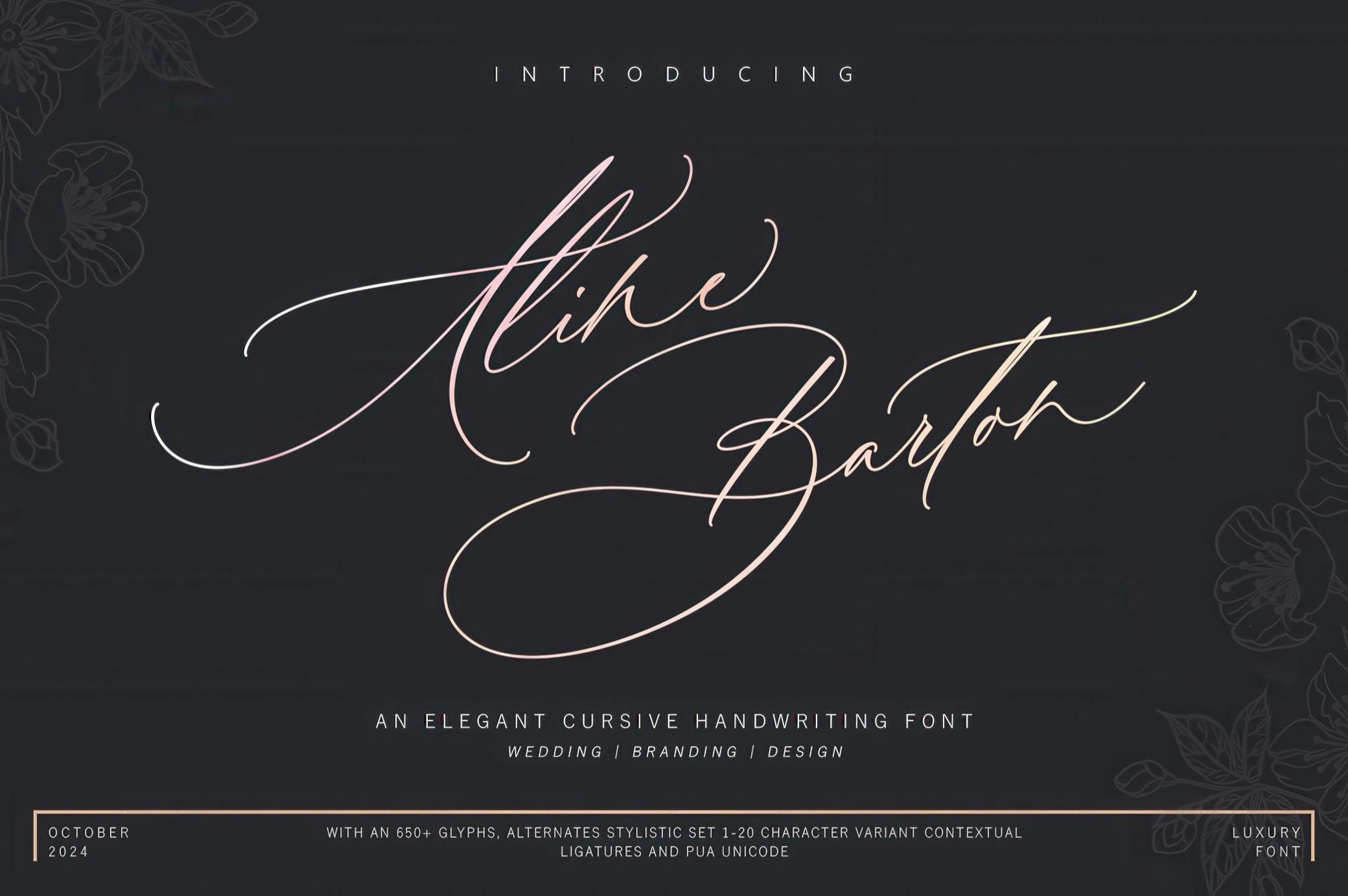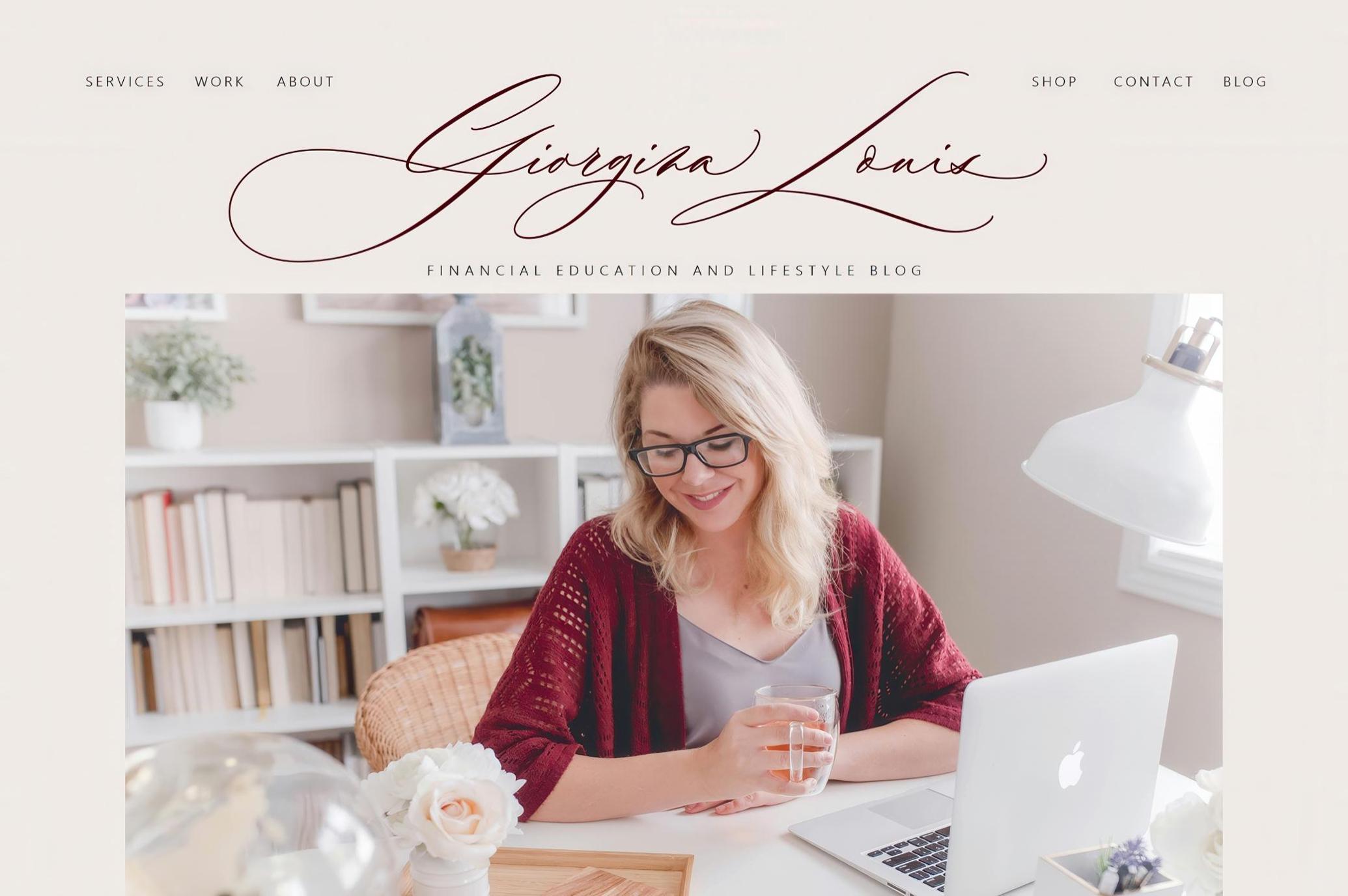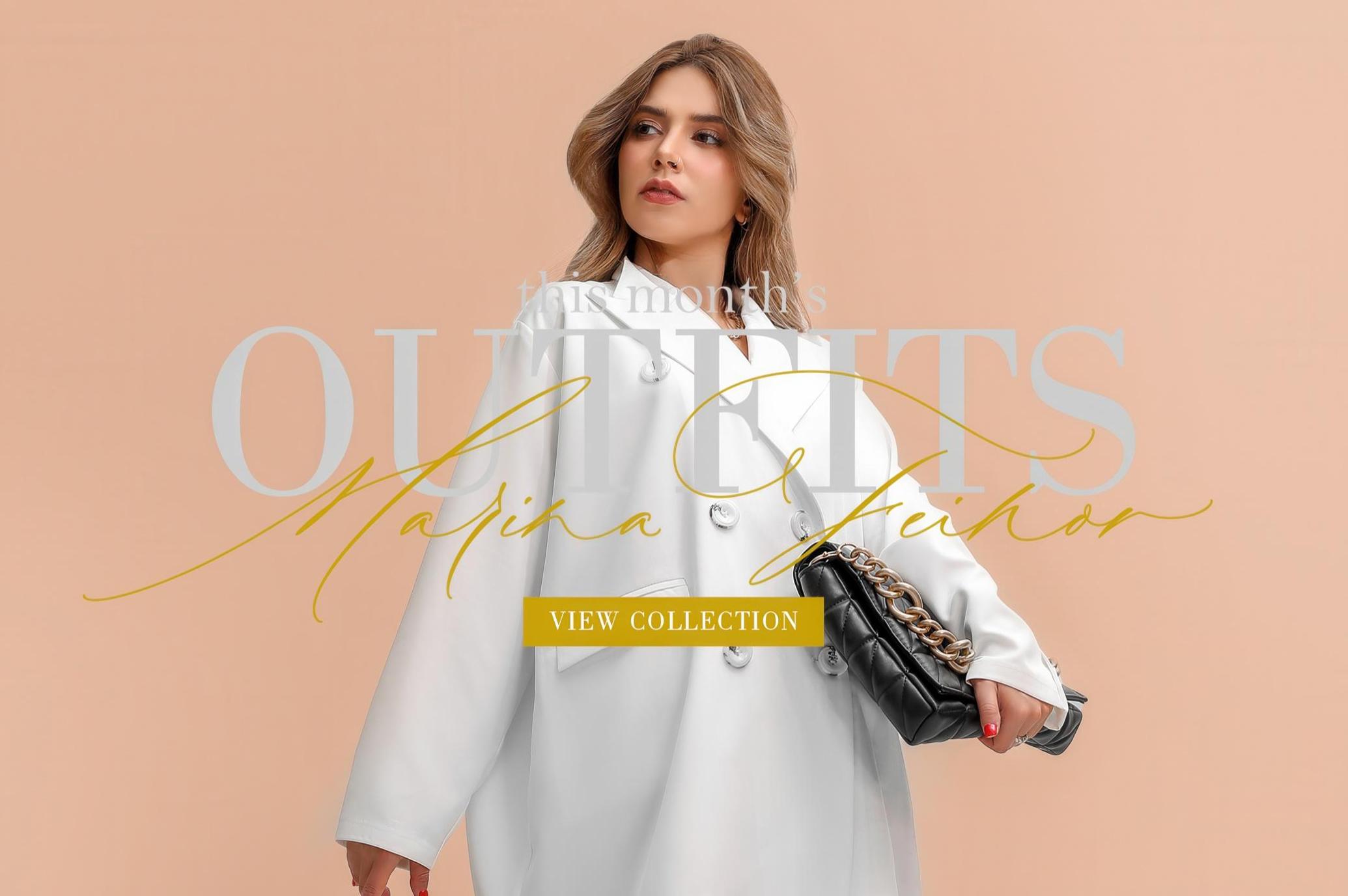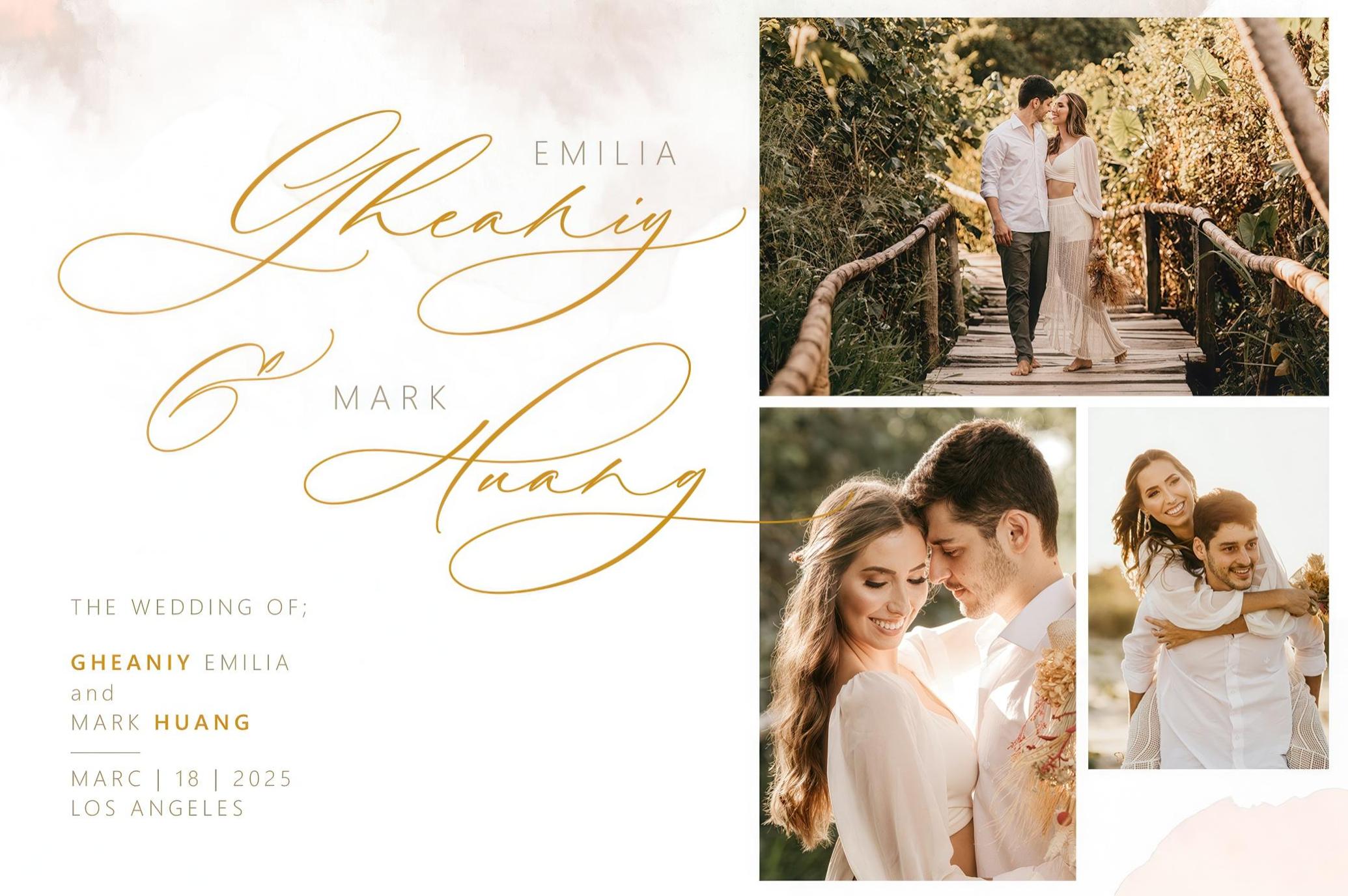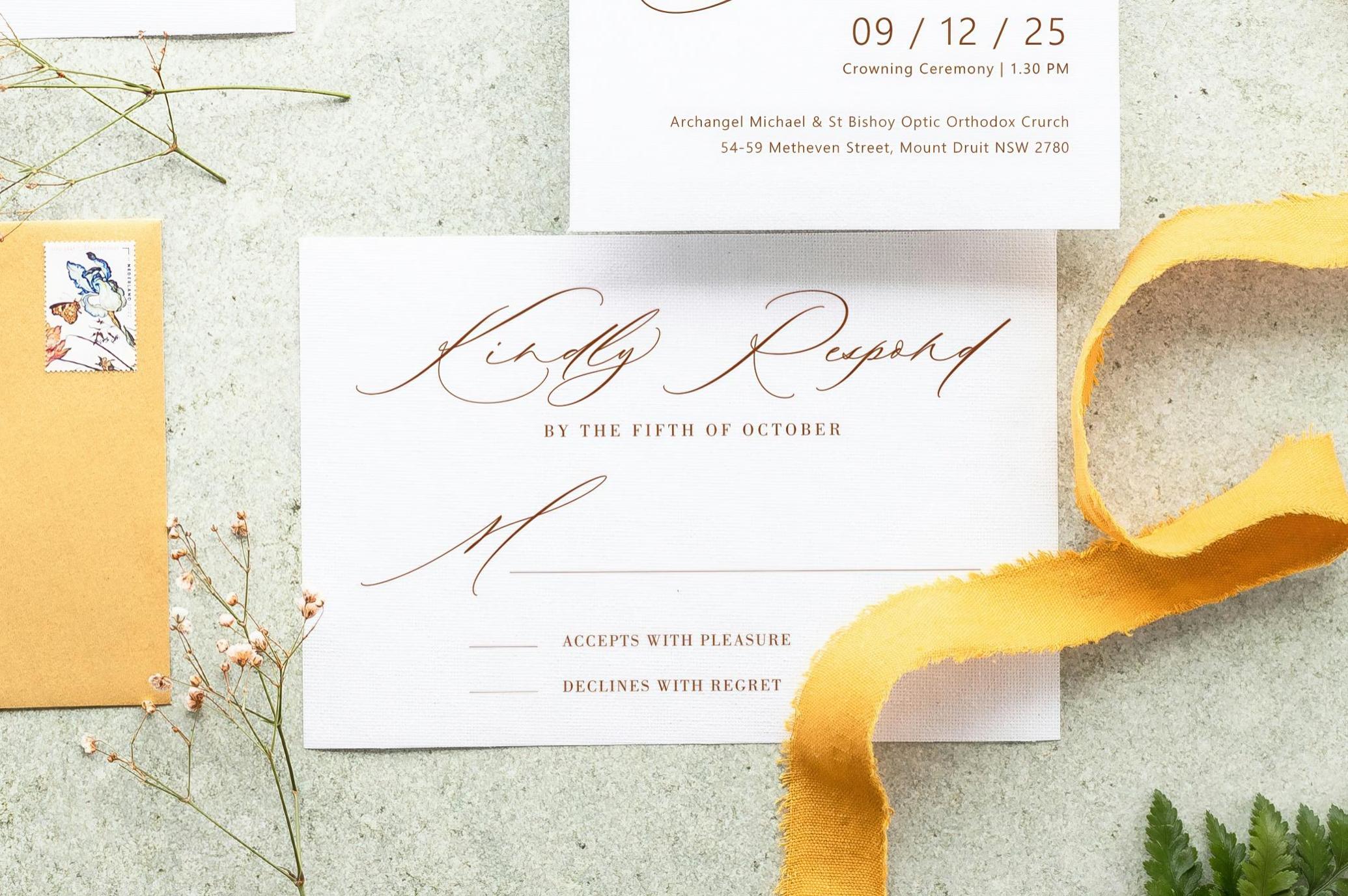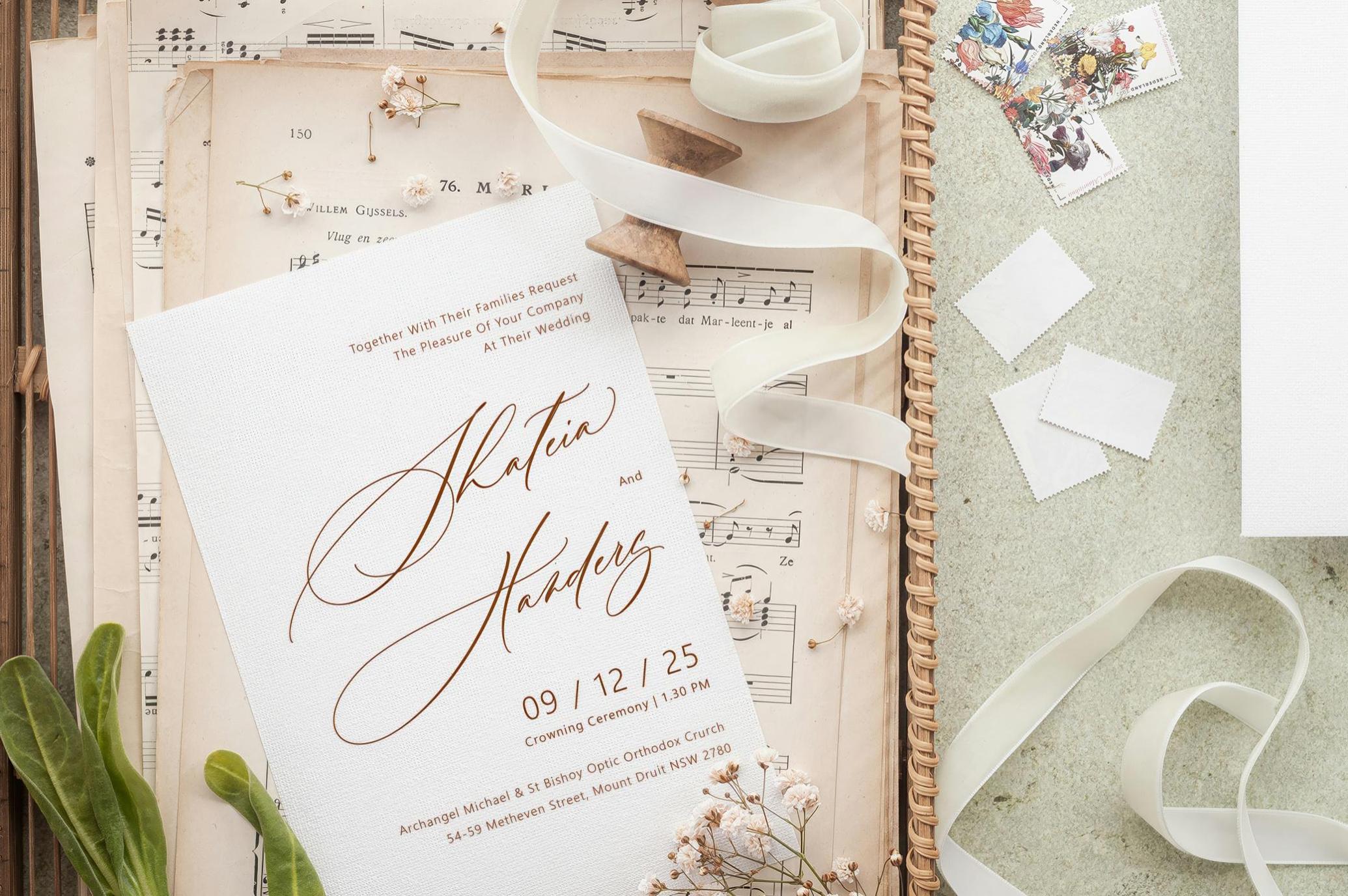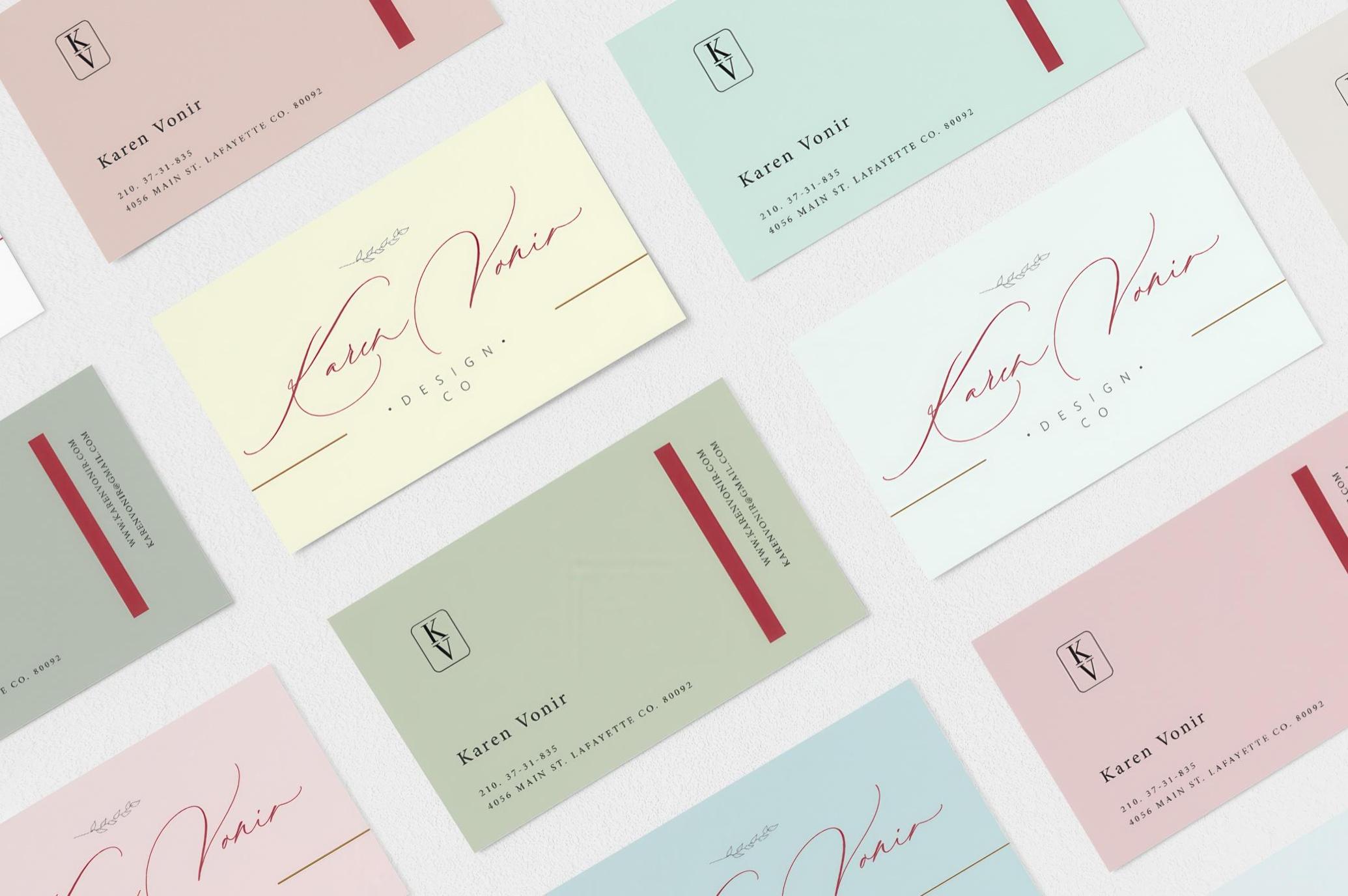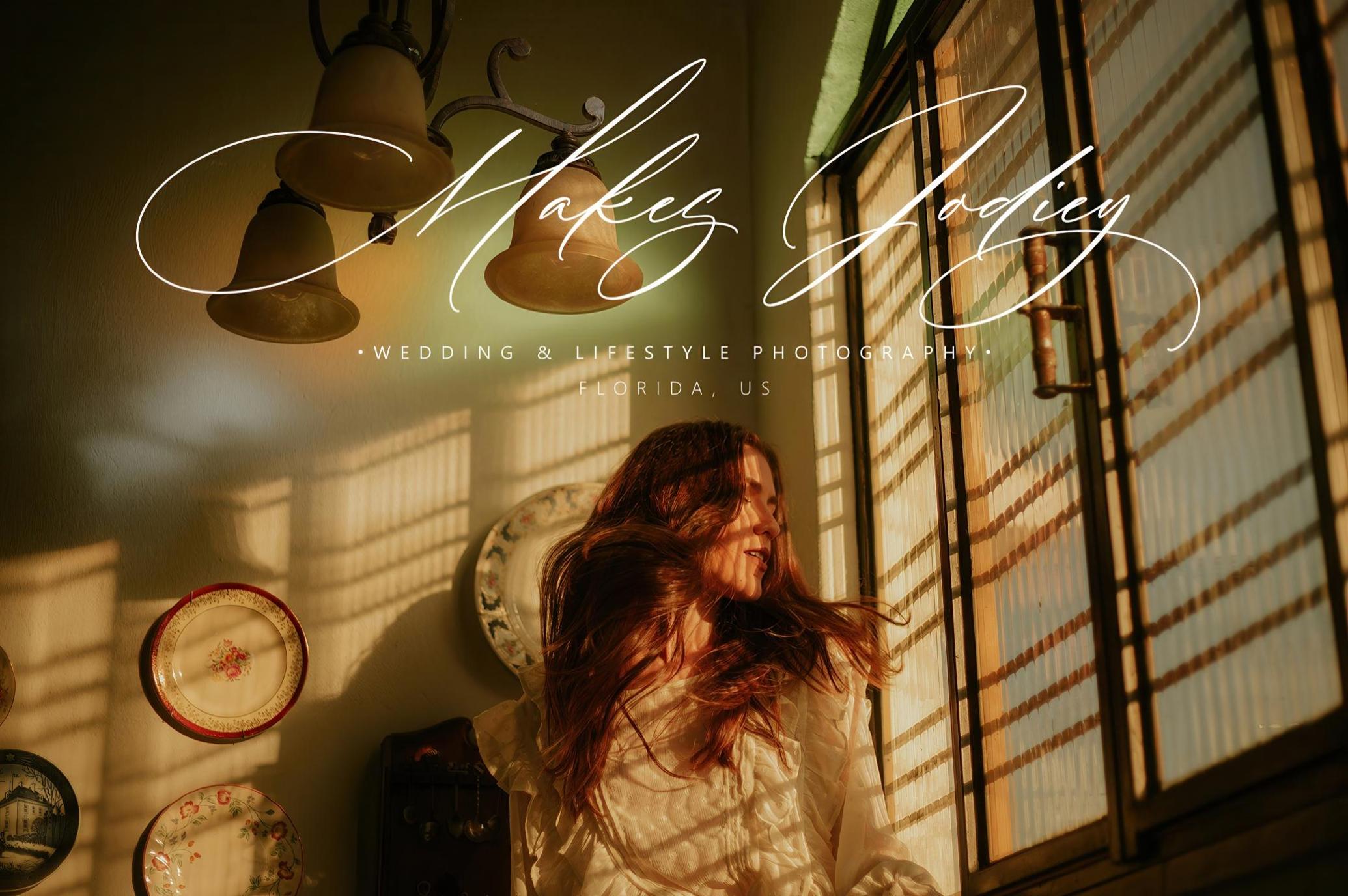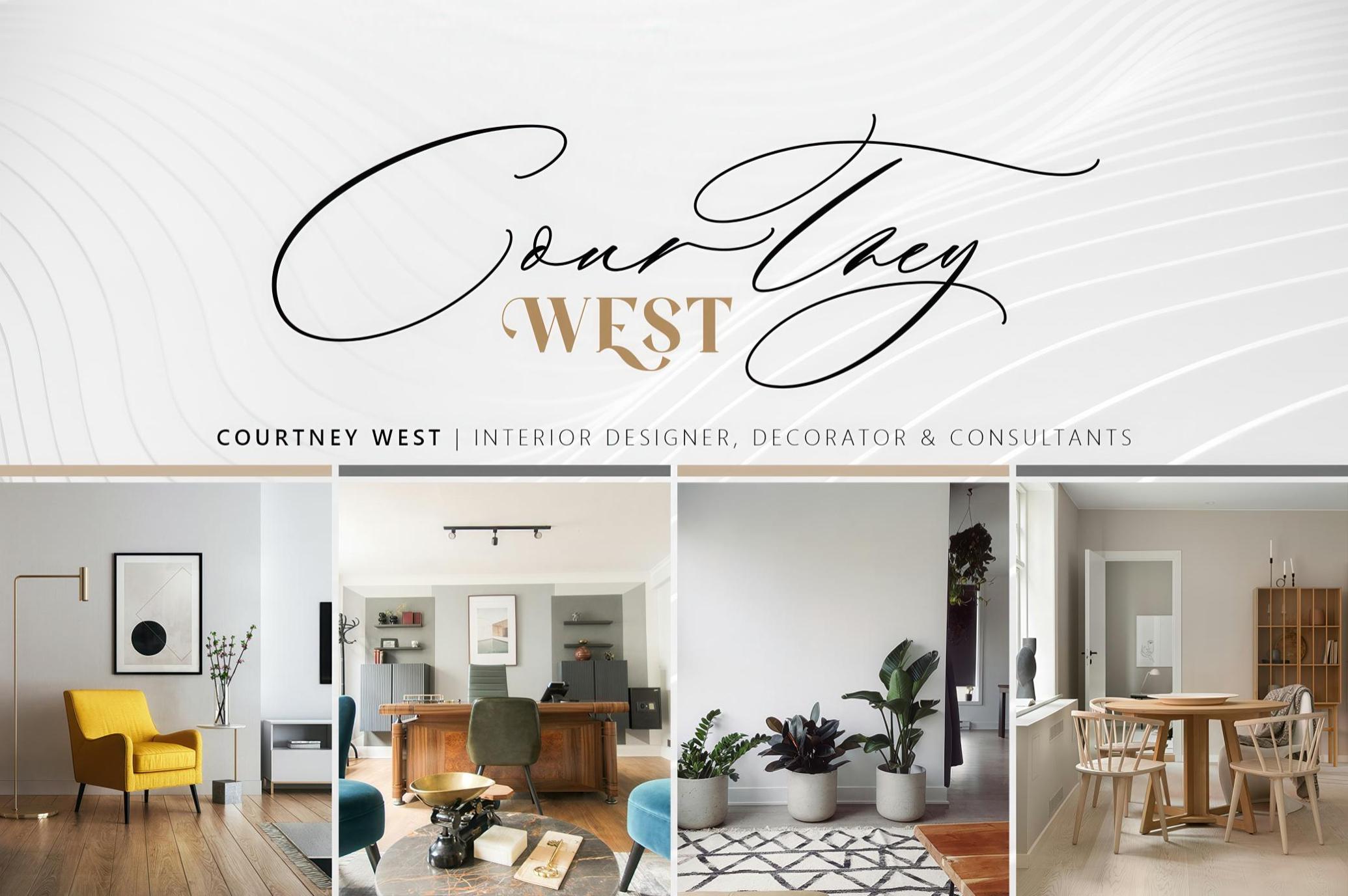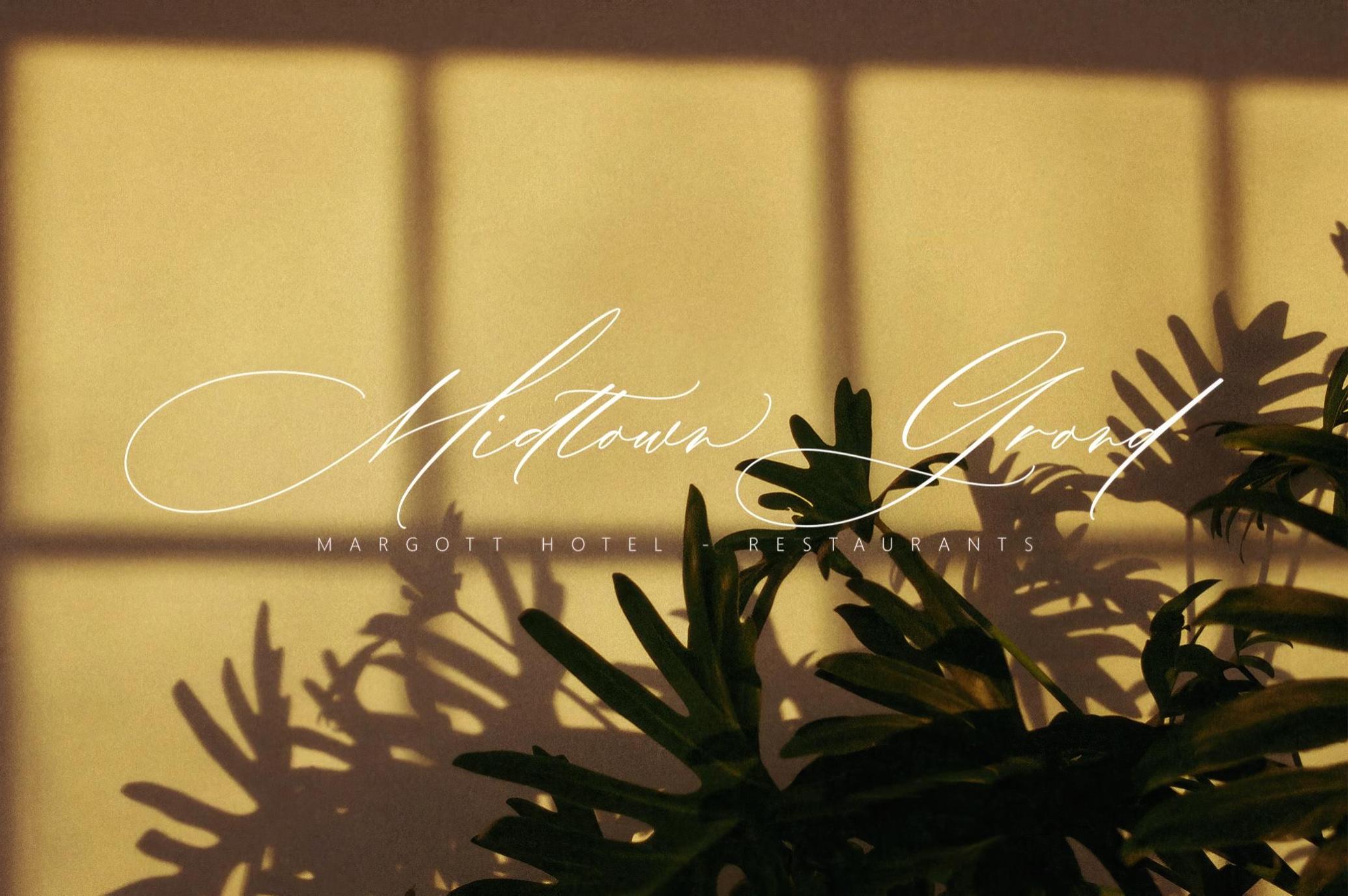
Aline Barton Script
Let's take a moment to flirt. Or even better — compose an entire love letter with Aline Barton. This high-contrast cursive font strikes a refined balance between ornate swashes and delicate rhythm, with every curve crafted to exceed formal design. With over 650 glyphs and a suite of OpenType features, it offers incredible typographic flexibility, e.g., flowing ligatures, 20 stylistic sets, and contextual alternates. And its multilingual support, PUA encoding, and double-style uppercase system make it practical and indulgent.
Aline Barton is built for those moments when your words need to dress up: invites, stationery, packaging, or personal monograms. Whether you're designing a wedding suite, luxe branding, or a signature logo, it adds some timeless sophistication.